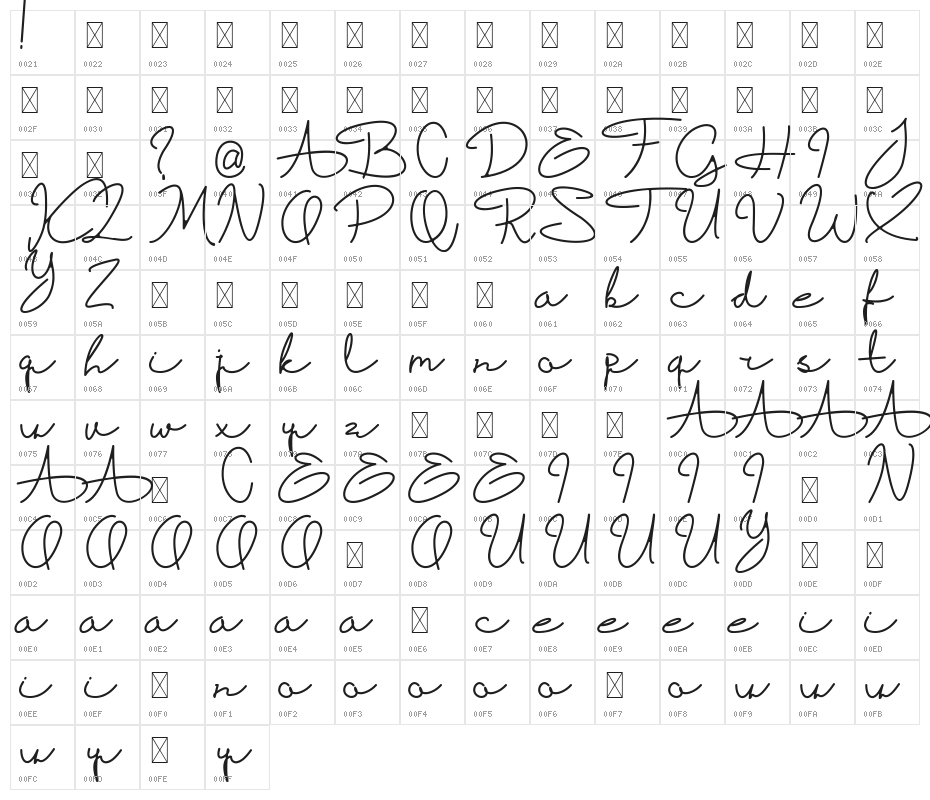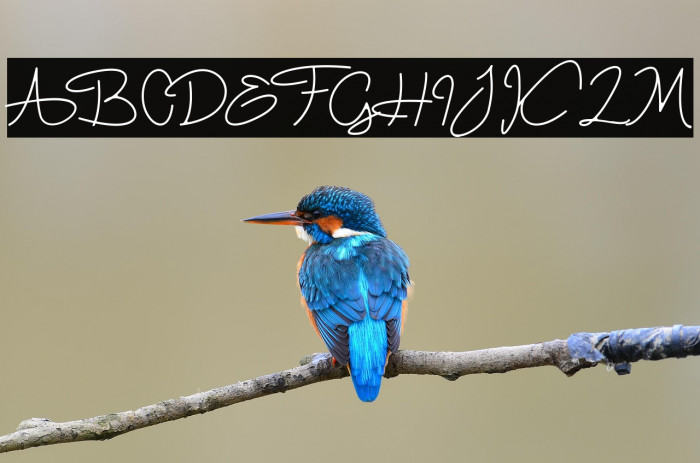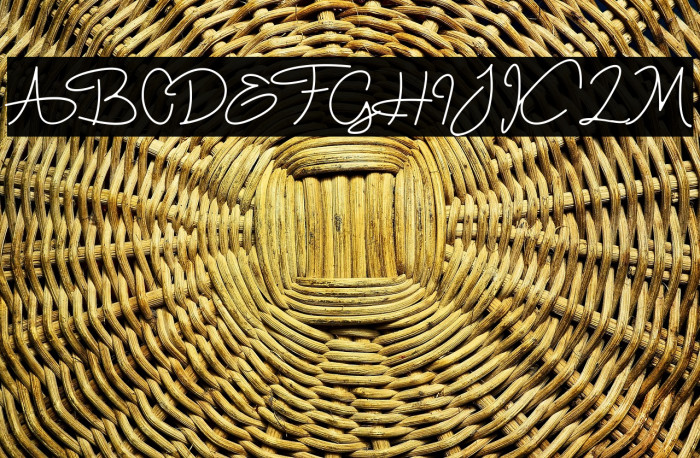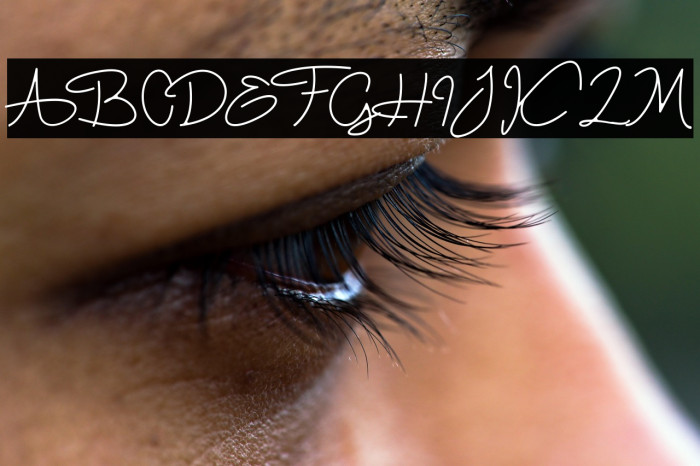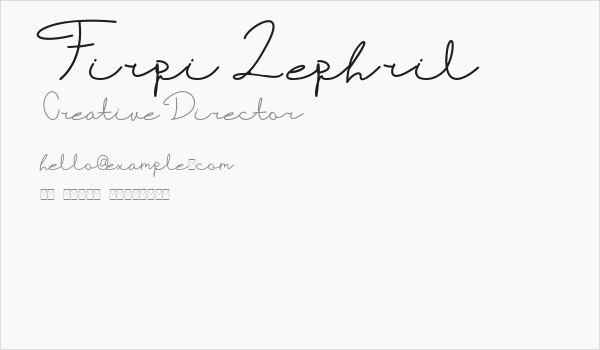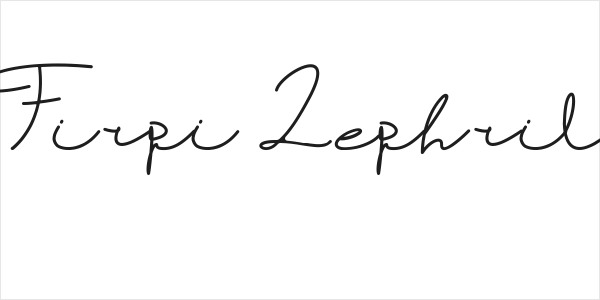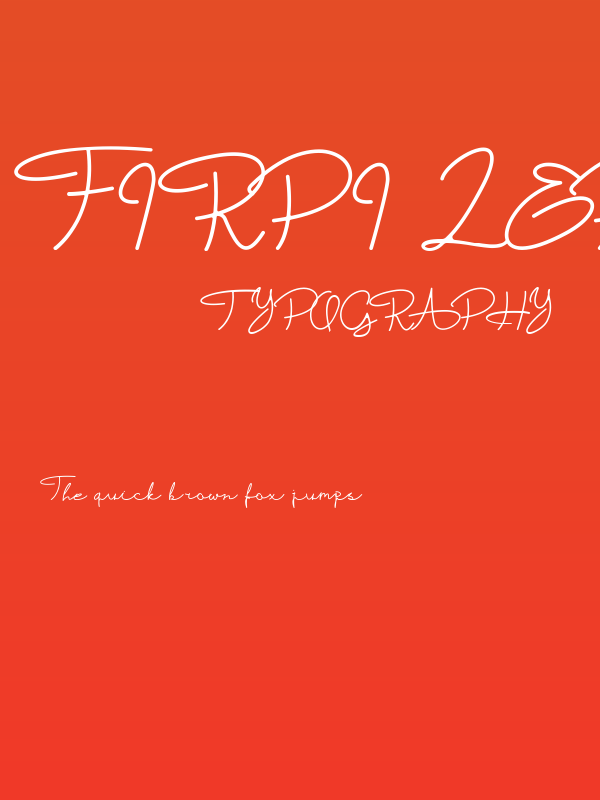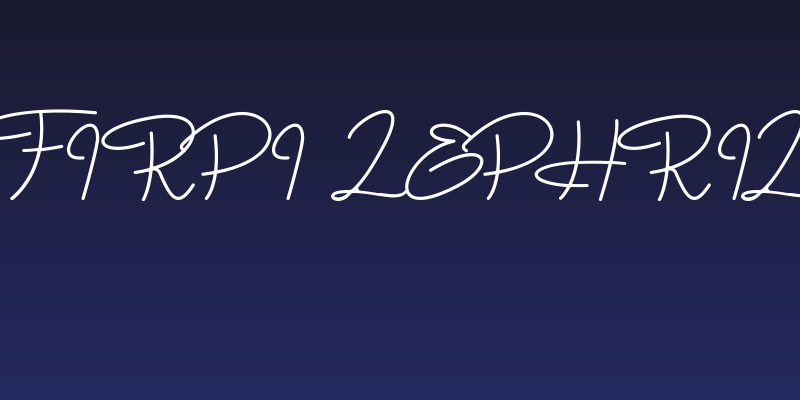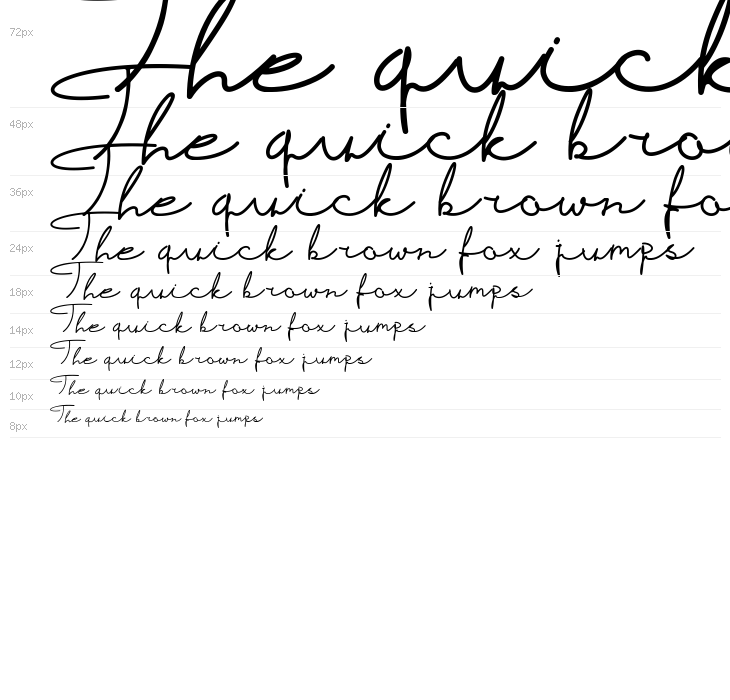
Firpi Lephril Font
Firpi Lephril Description
This font features a fluid, cursive style with elegant, sweeping strokes that give it a handwritten appearance. The uppercase letters are characterized by their graceful loops and curves, while the lowercase letters maintain a consistent flow, enhancing readability. The font's design is reminiscent of classic calligraphy, with a modern twist that adds a touch of sophistication. The characters are well-spaced, allowing for clear legibility even in smaller sizes. This font is ideal for projects that require a personal, artistic touch, such as invitations, greeting cards, or branding materials.
| Proposed Projects | Ideal for wedding invitations, greeting cards, personal branding, and artistic projects. |